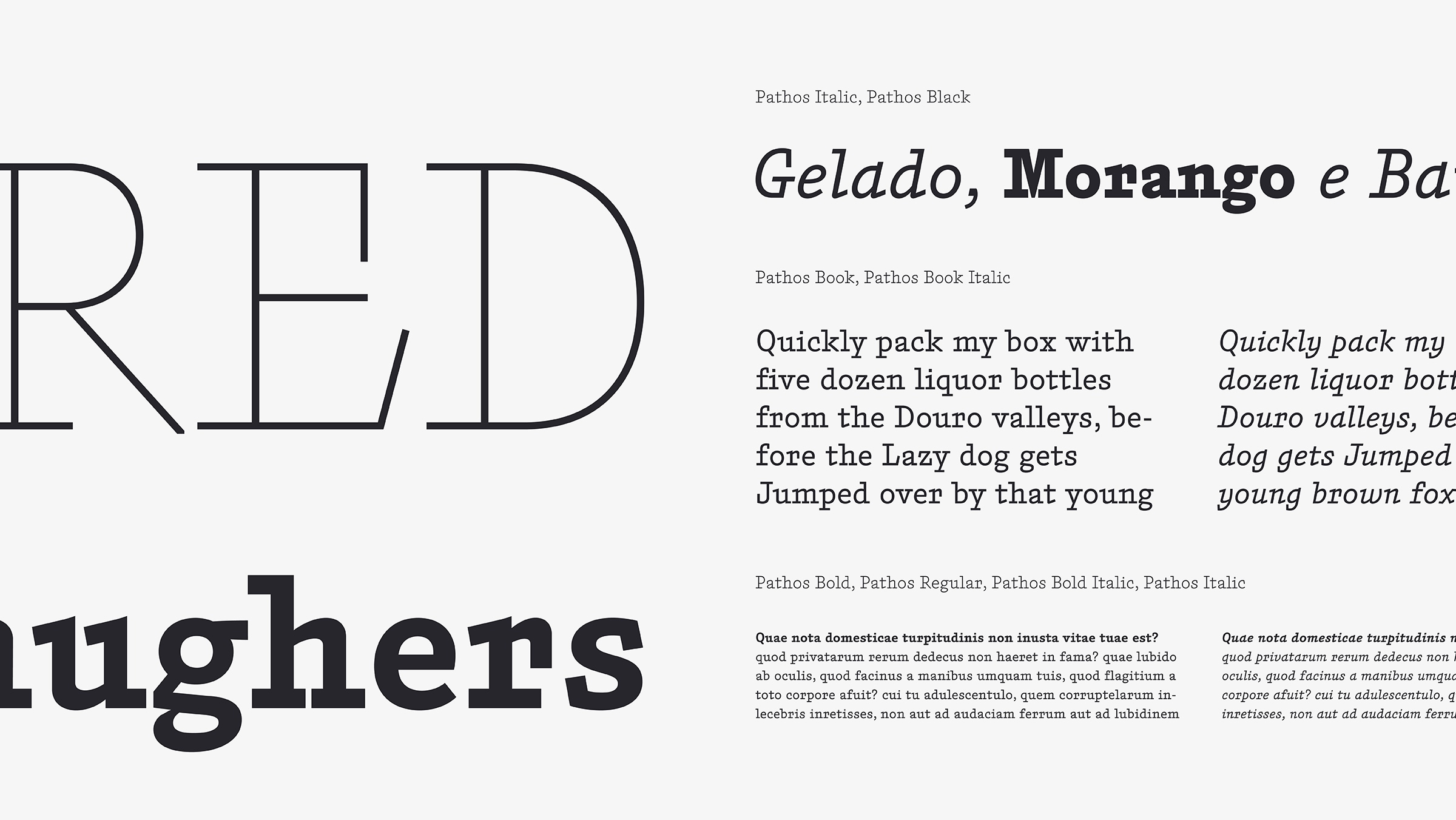
Pathos Font
Pathos Font is perfect for emotional storytelling, dramatic theater productions, film credits, poetry collections, artistic exhibitions, emotional marketing campaigns, psychological branding, therapeutic materials, creative writing projects, and expressive brand identities.
What makes Pathos Font exciting is its profound emotional depth that captures the essence of human feeling and dramatic expression through powerful letterforms. This evocative typeface combines emotional intensity with artistic sophistication, creating a personality that communicates passion, empathy, and authentic human connection. The font's expressive character and dramatic appeal make it perfect for brands and projects that seek to touch hearts, inspire emotions, and create meaningful connections with audiences through genuine storytelling.
The Pathos Font family includes Regular, Bold, Light, Medium, Italic, Dramatic, Expressive, and Intense variants. Each weight maintains the font's emotional character while providing comprehensive typographic flexibility for dramatic brand identity systems and expressive design applications across diverse emotional storytelling platforms.
Whether you're developing emotional brand identities, creating dramatic marketing materials, designing therapeutic content, or building expressive artistic campaigns, Pathos Font delivers unmatched emotional impact and dramatic appeal. Its expressive presence makes it perfect for theaters, counseling services, artistic organizations, and emotional wellness brands seeking authentic expressive representation.
The font's dynamic proportions and emotional details create an intense reading experience that resonates deeply with audiences seeking authentic human connection and emotional understanding. Each letterform has been carefully crafted to convey genuine feeling, dramatic intensity, and empathetic communication that touches hearts and inspires meaningful engagement.
This versatile typeface excels in emotional brand environments, offering designers the expressive power needed for comprehensive dramatic brand communication strategies. The extensive character set includes emotional alternates, expressive ligatures, and dramatic symbols for therapeutic market positioning and emotional brand storytelling.
Embrace the power of emotional design that speaks to the heart and celebrates authentic human experience.